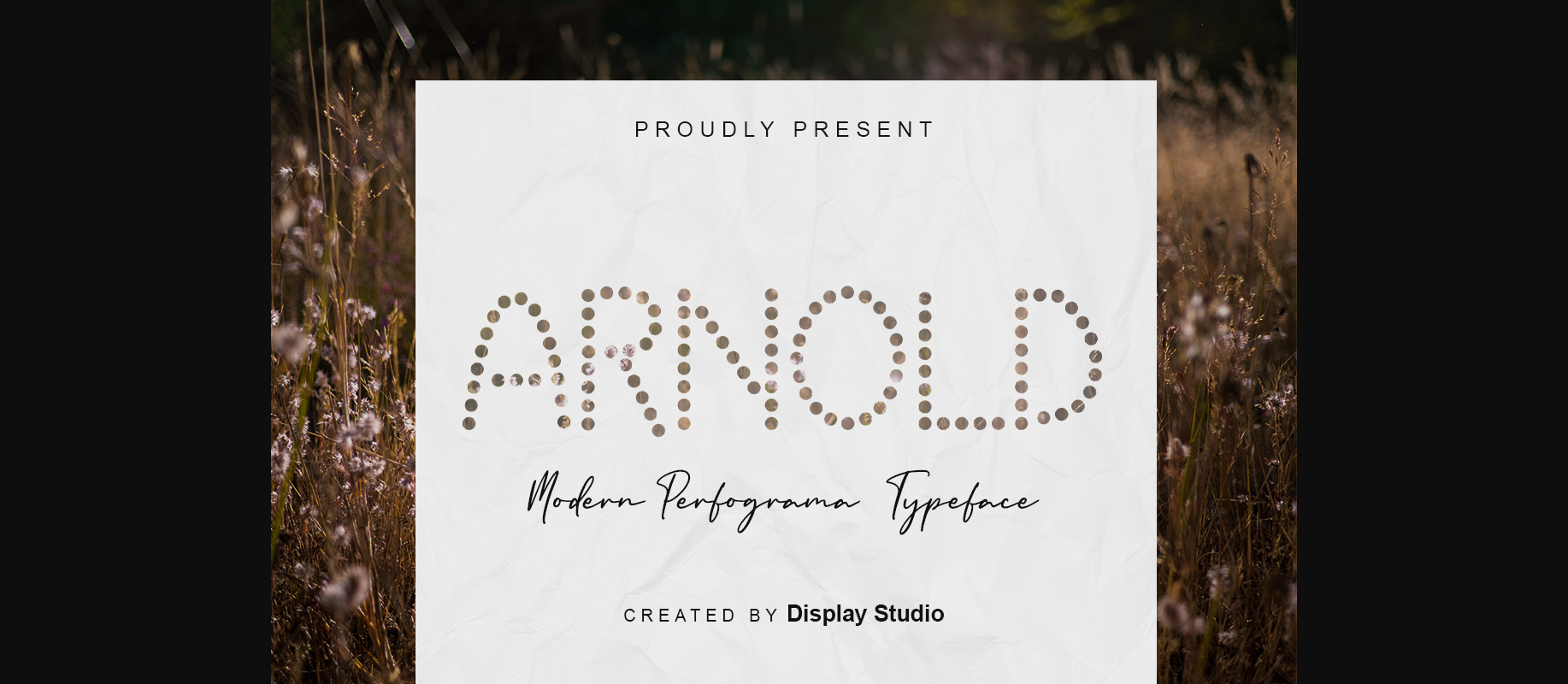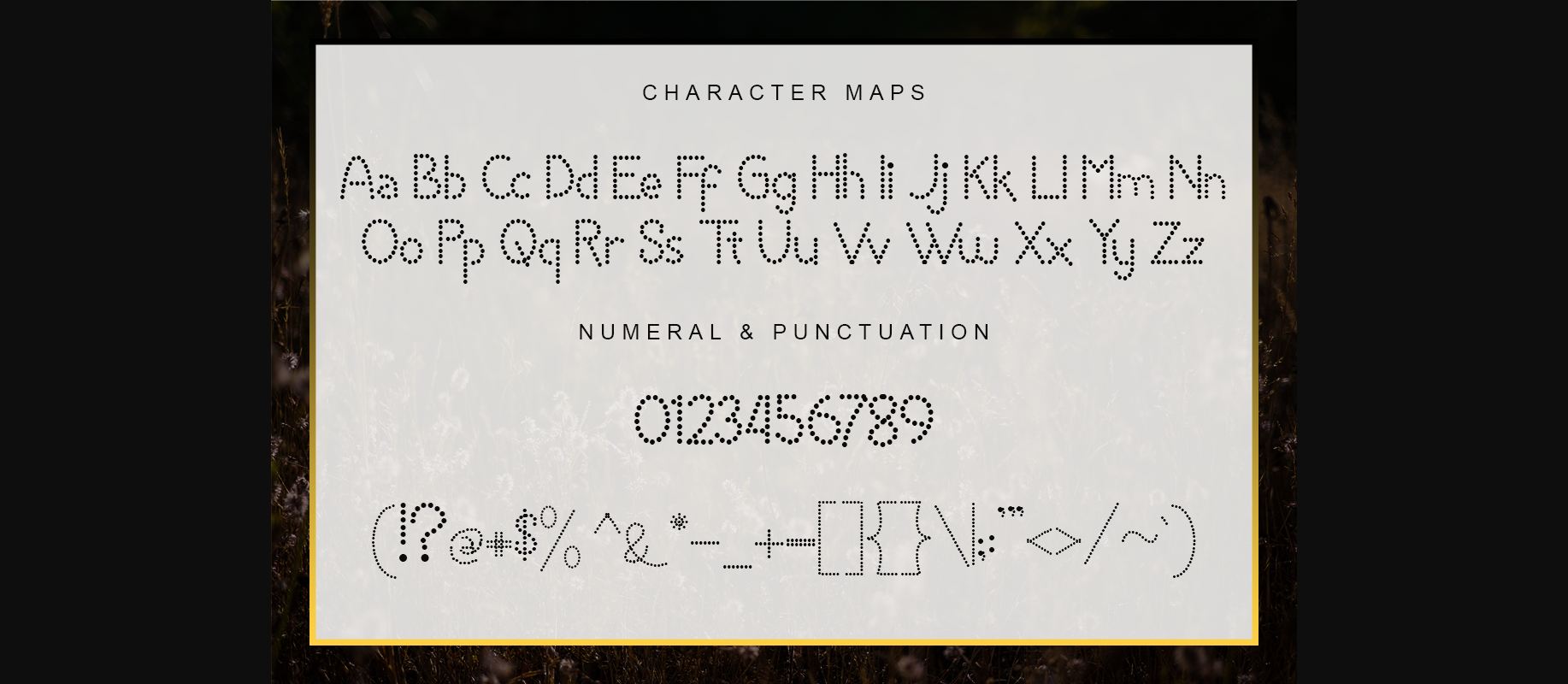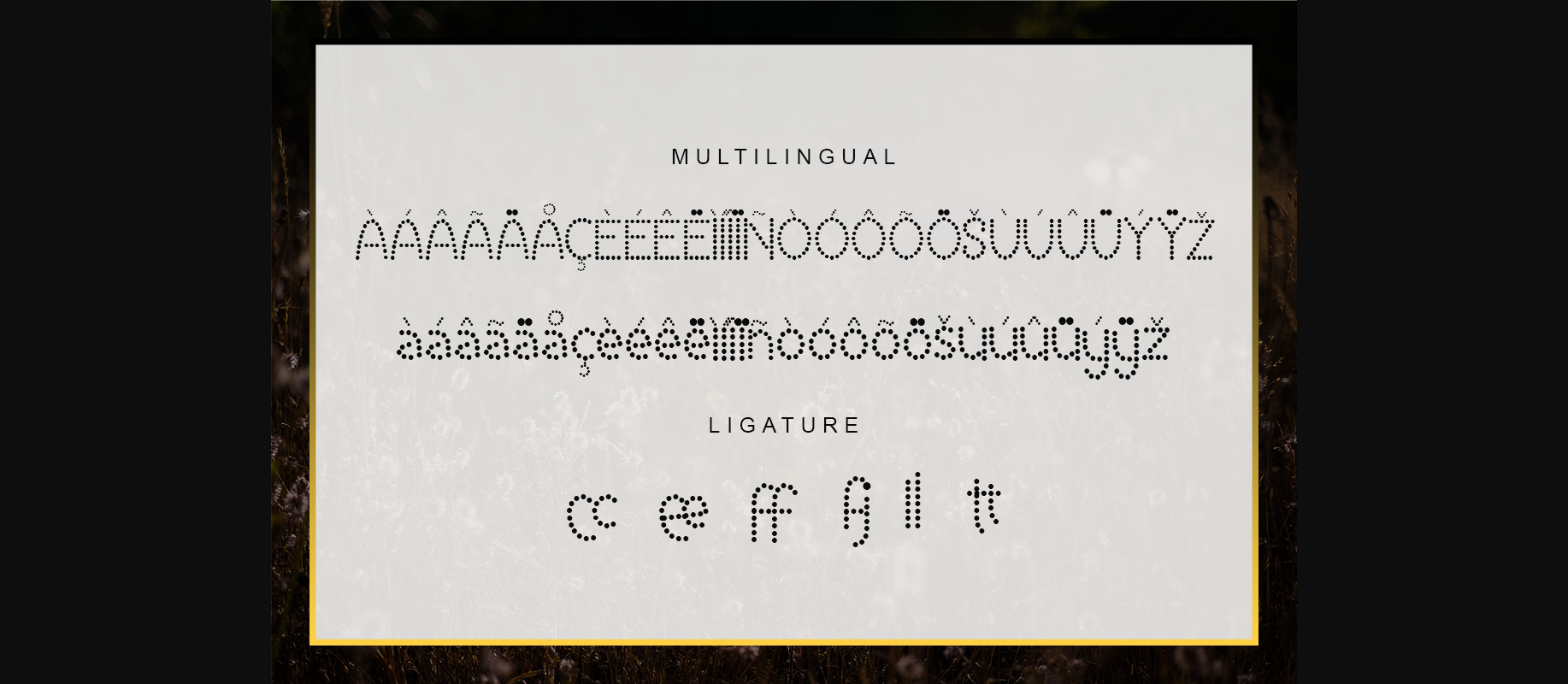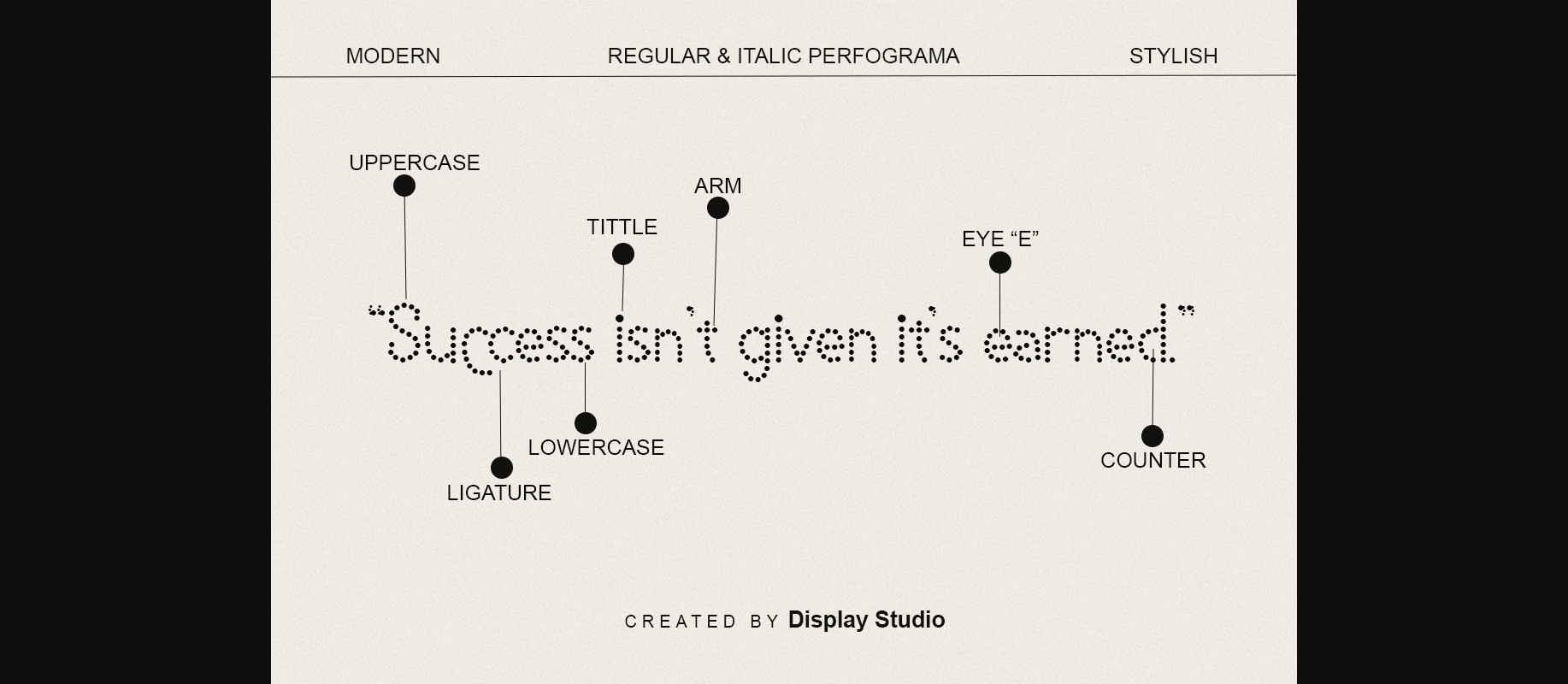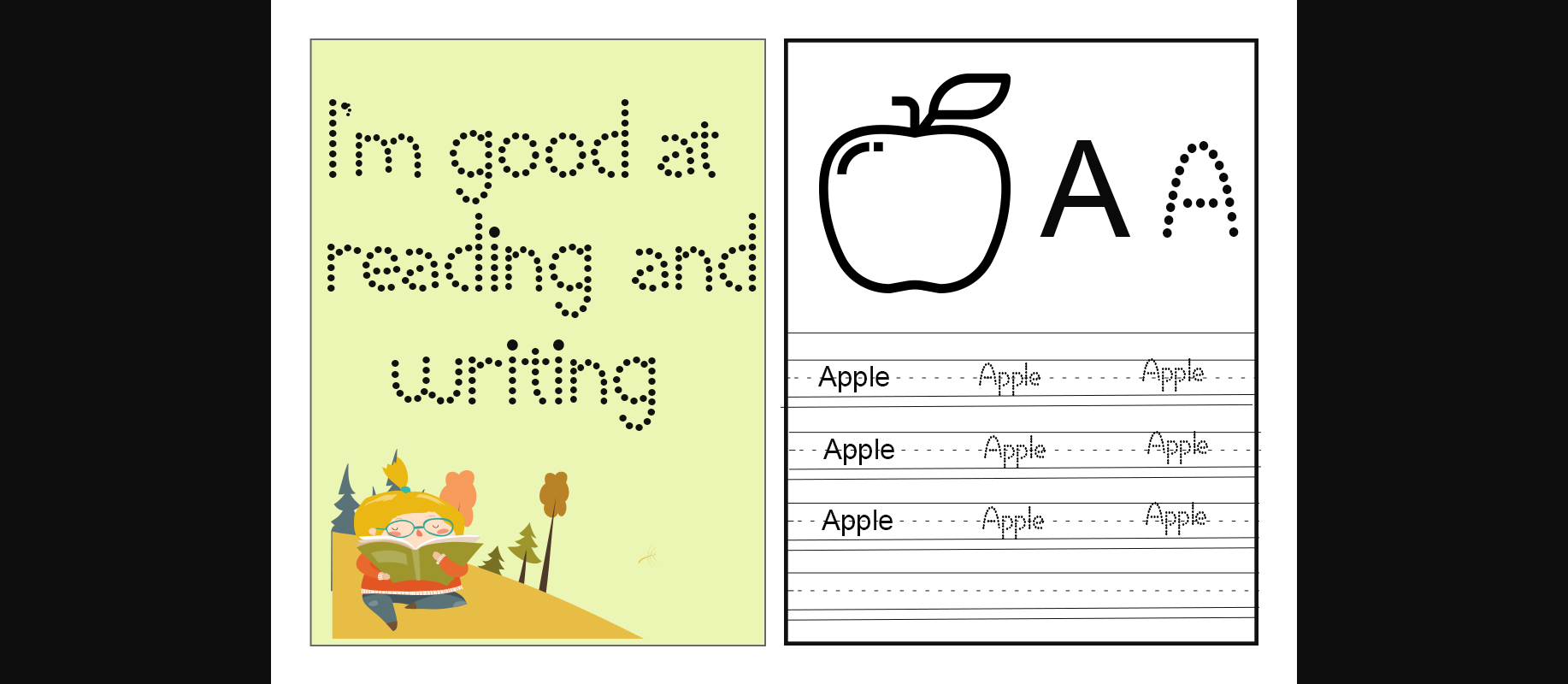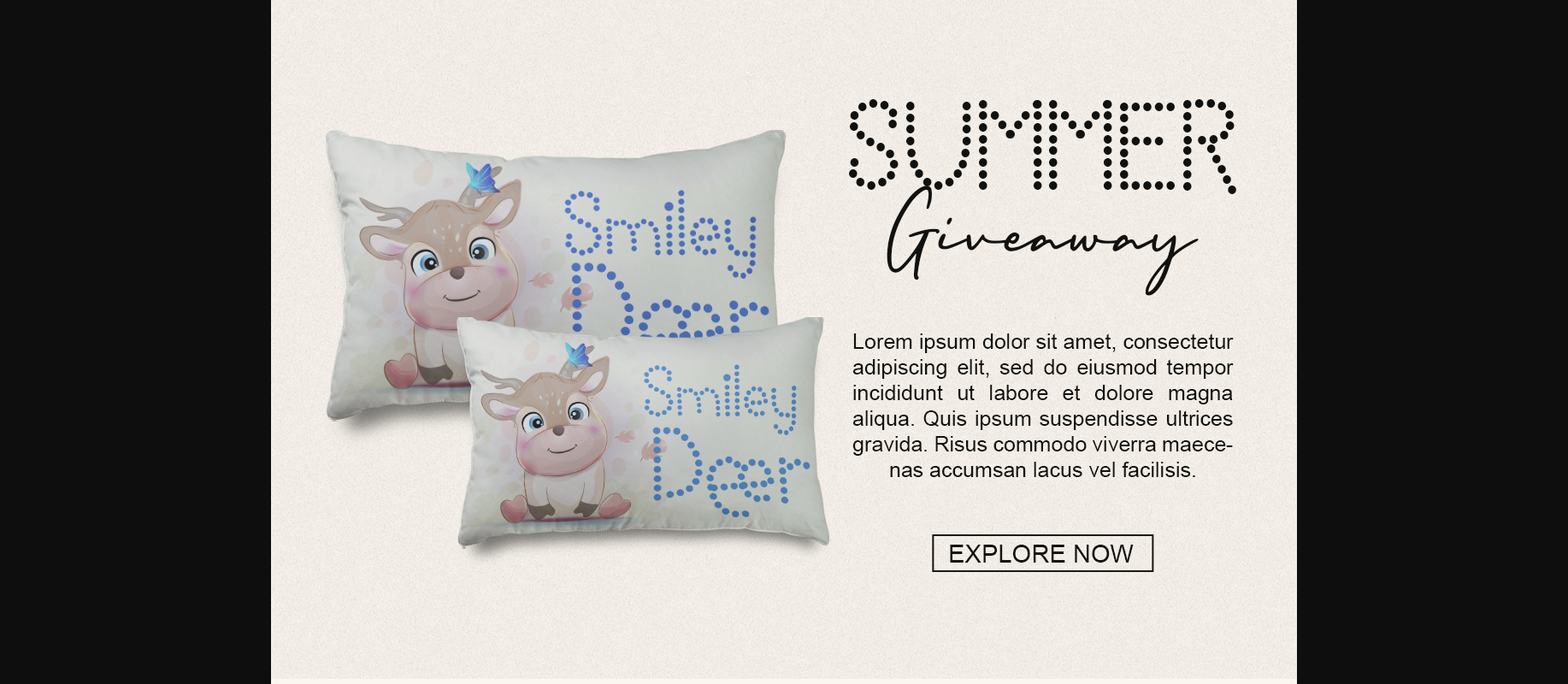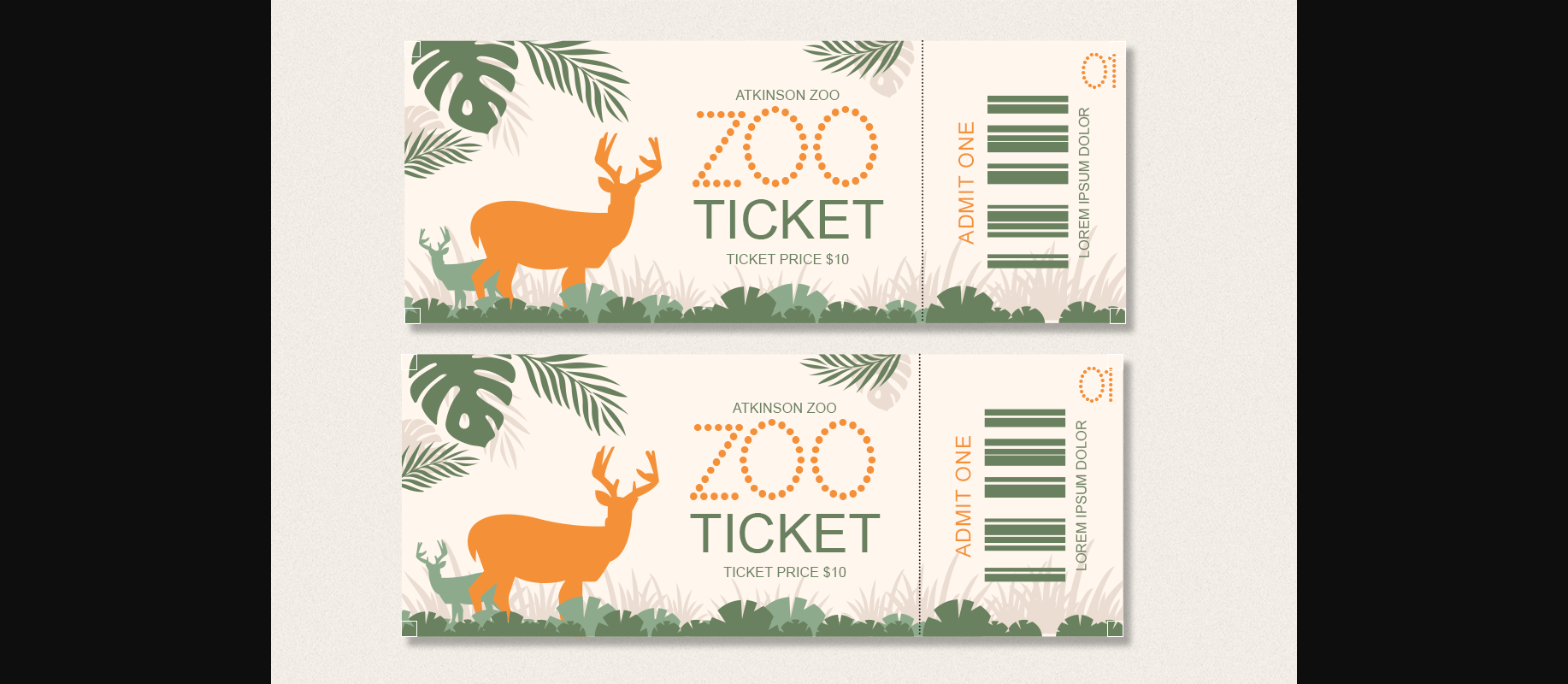
Arnold Font
About Arnold Font
Arnold is a unique and friendly decorative font. This typeset is perfect for brand logo, invitations, greeting card, or even any kind of project. With childish features and style variations, this typeface would further enhance the aesthetical aspect of your work.